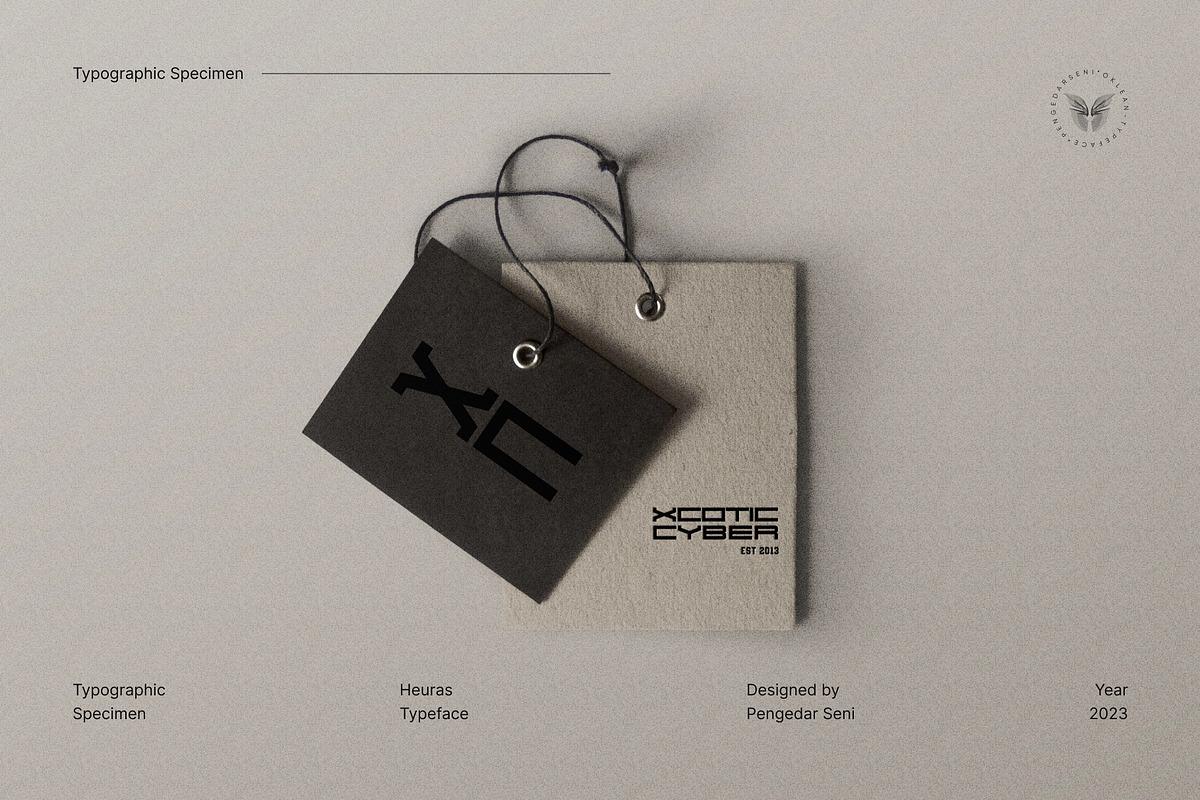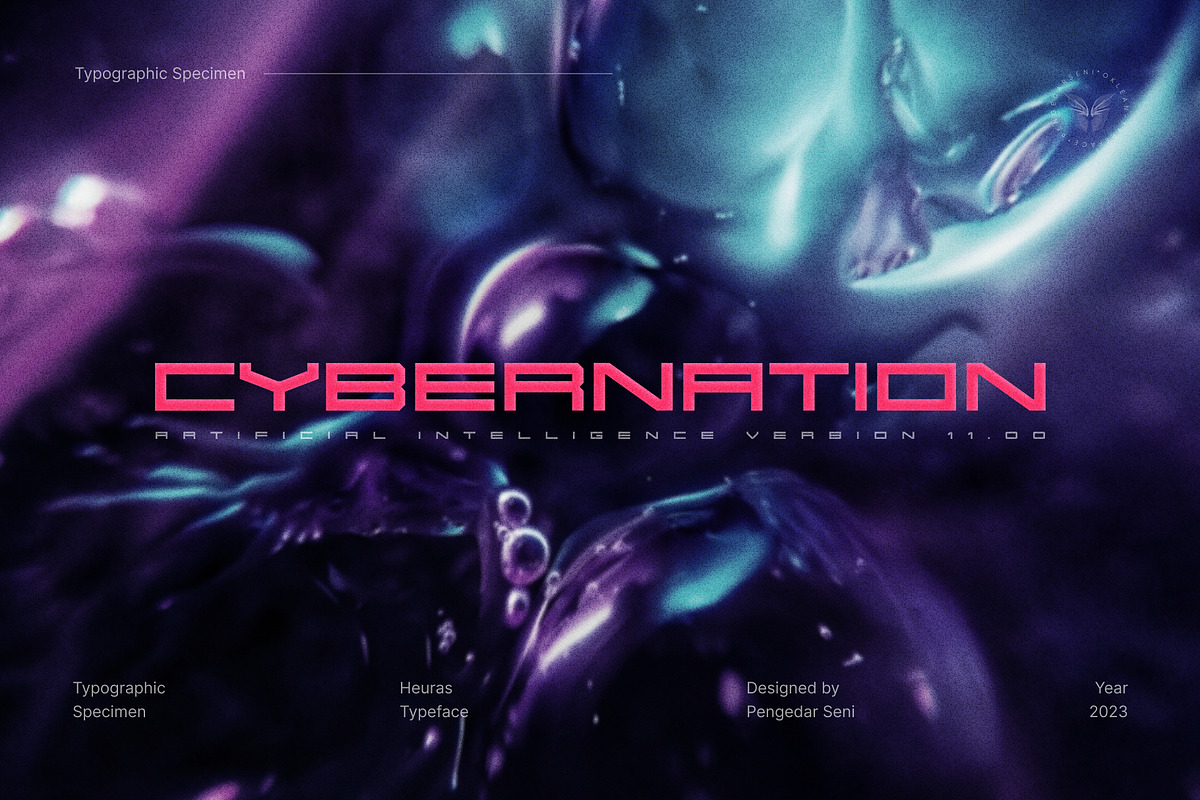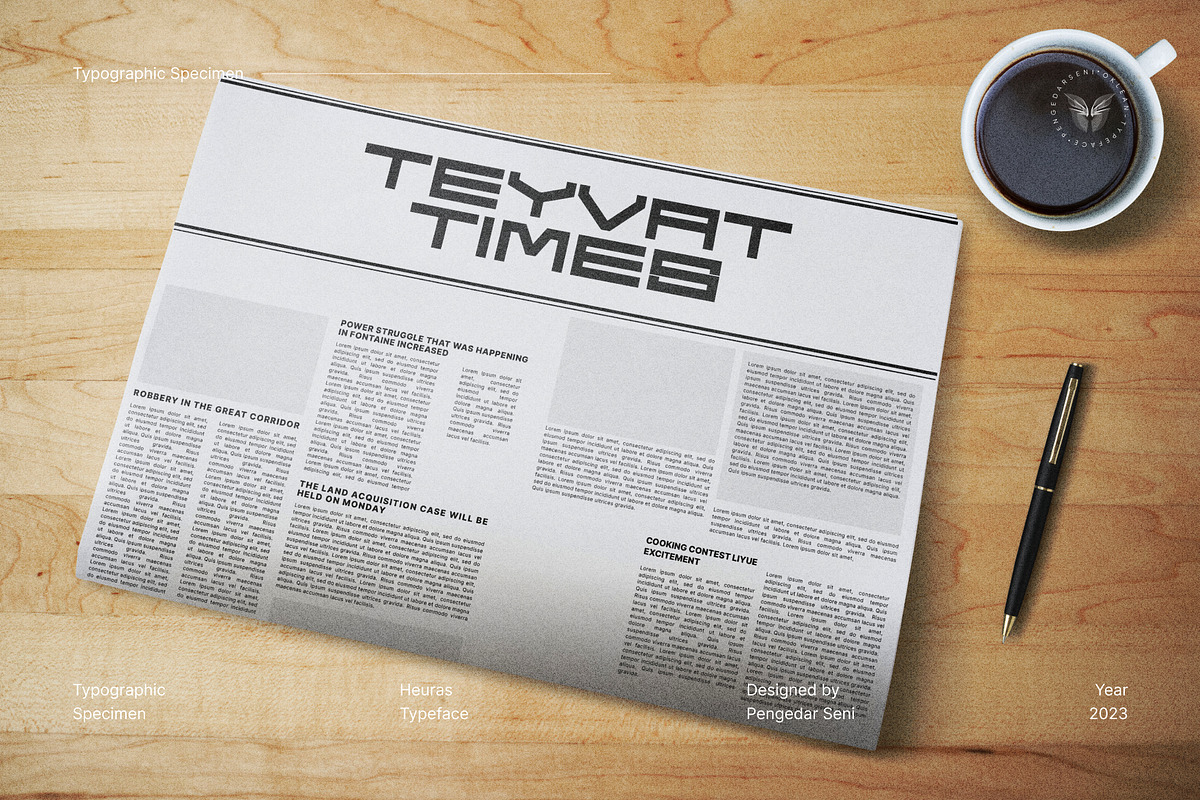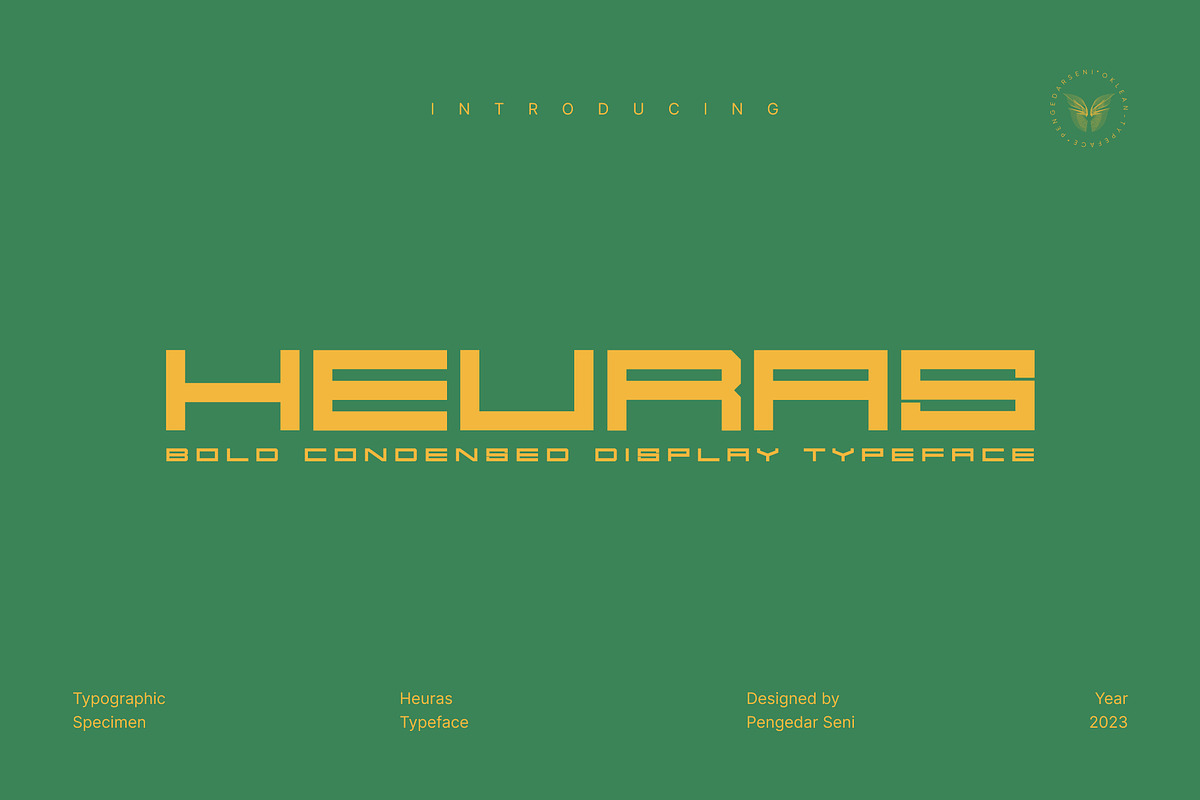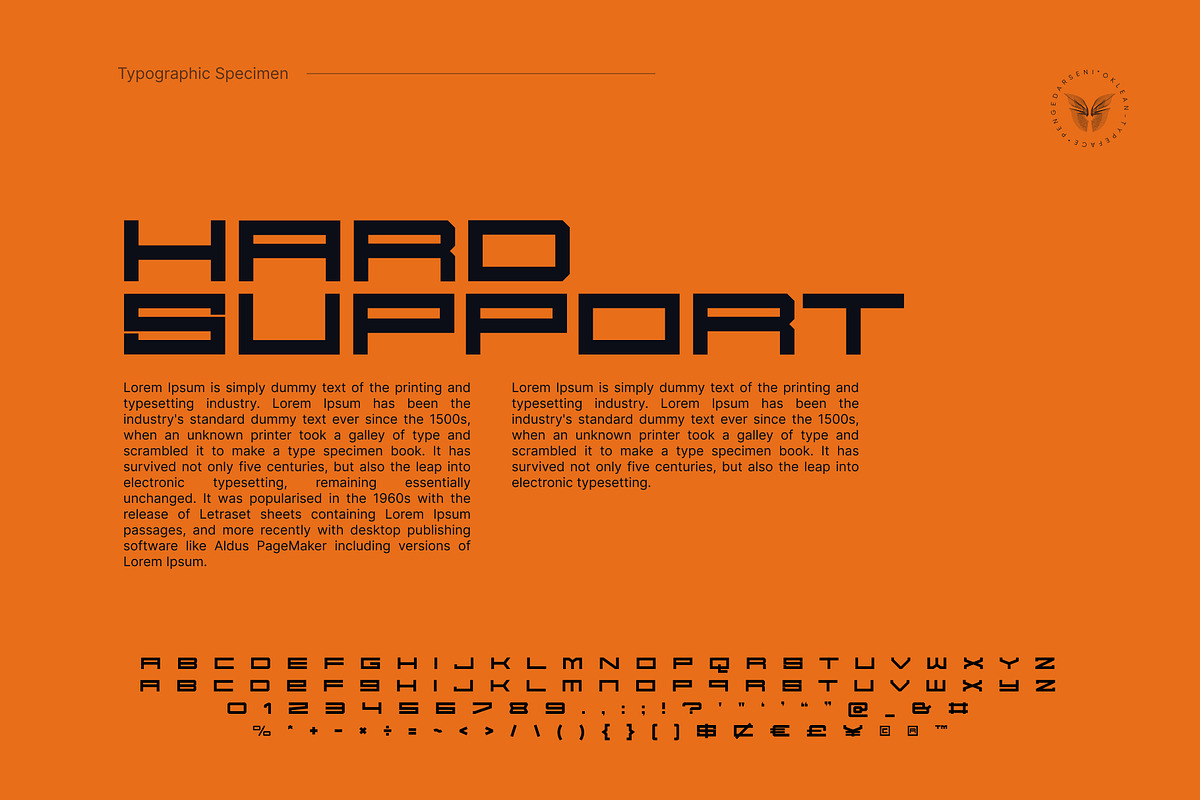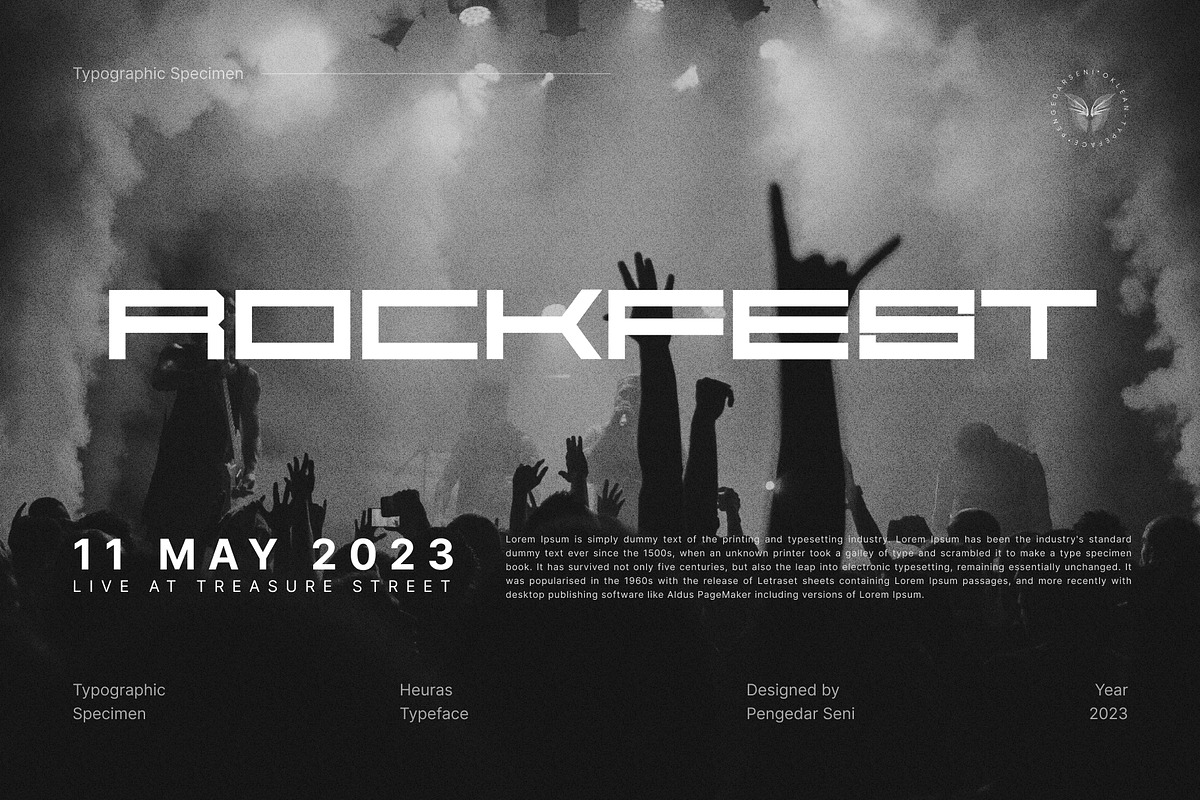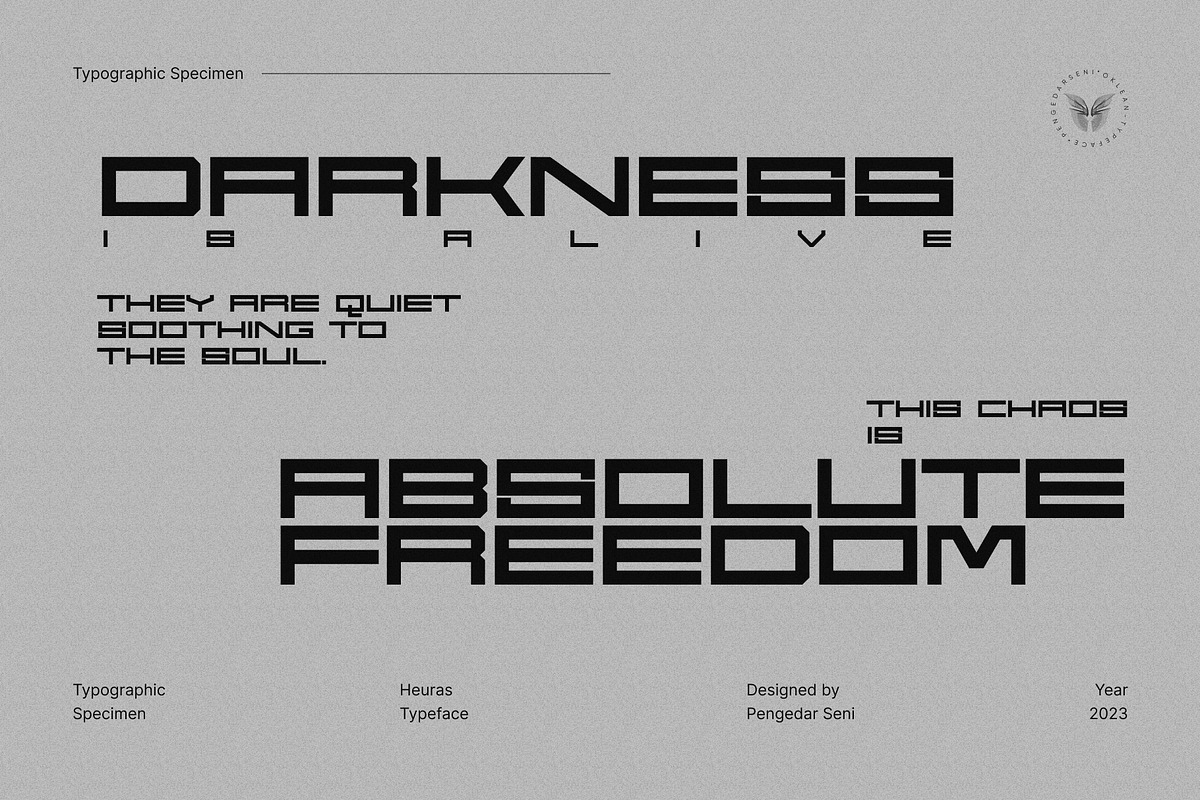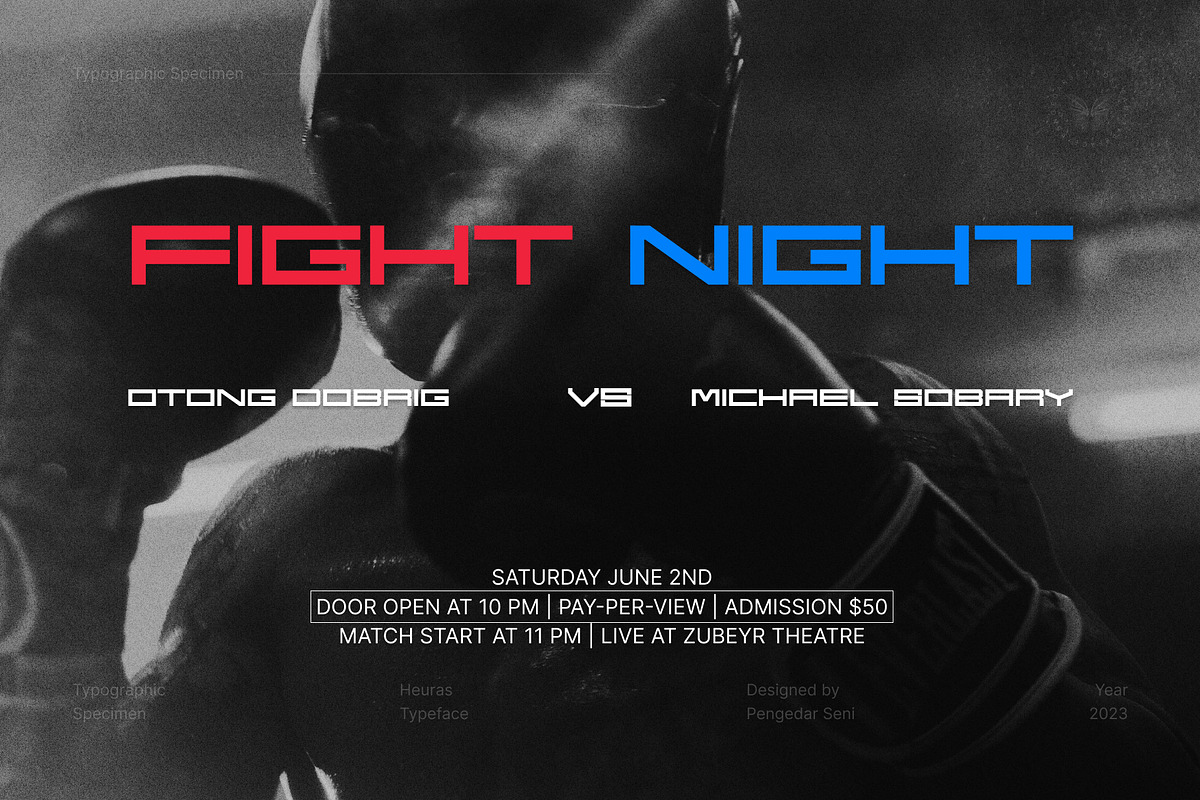
Heuras - Condensed Bold Sans
⭐ Heuras – Bold Condensed Display Typeface
Heuras is a bold, condensed display typeface built for dominance, strength, and athletic energy. Designed with sharp horizontal cuts and a balanced structure, Heuras delivers an intense, futuristic, and action-packed aesthetic. Whether for sports branding, technology logos, or high-impact headlines, this typeface commands attention with its fearless attitude.
🔥 The Meaning Behind Heuras
Derived from the Sundanese word for "hard," Heuras embodies resilience, power, and unwavering determination. Its structured yet aggressive letterforms exude confidence, making it the perfect choice for those who seek to stand out with forceful typography.
✅ Why Choose Heuras?
✅ Bold & Condensed Design – Perfect for impactful headlines, logos, and branding.
✅ Athletic & Powerful Aesthetic – Ideal for sports, esports, and action-packed visuals.
✅ Balanced Yet Aggressive – Strong horizontal elements create stability and dominance.
✅ Futuristic & Technological Edge – Suited for gaming, sci-fi, and innovation-driven projects.
✅ Versatile & Commanding – Works seamlessly for posters, jerseys, editorial design, and dynamic marketing.
⚡ Heuras isn’t just a font—it’s a statement of strength, ambition, and unstoppable energy. ⚡